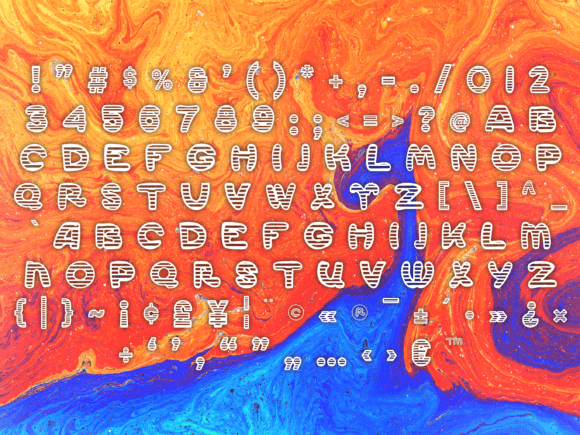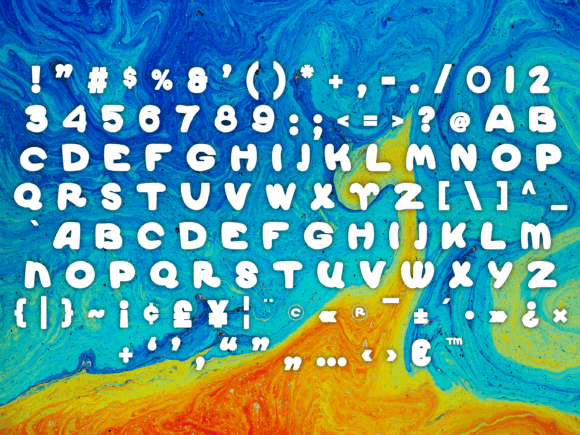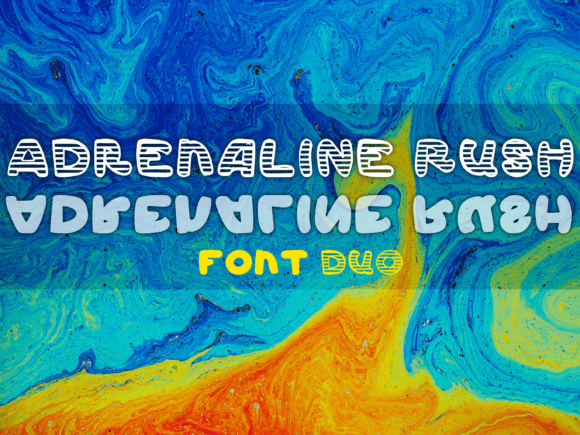
You know that moment when an idea hits you, and you can’t wait to bring it to life? For designers, it’s a rush like no other – a spark that sets your imagination ablaze and propels you towards something truly extraordinary. It’s a feeling that’s hard to describe, but it’s the thrill of creation that keeps us coming back for more.
That’s exactly what the Adrenaline Rush Font is all about – unleashing your creativity and letting your imagination run wild. This dynamic display font duo combines a solid style with a striped style, giving you the perfect canvas to create something truly spectacular. With the Adrenaline Rush Font, the possibilities are endless, and the fun is just beginning.
For designers, this font is a valuable asset – a versatile tool that can add an extra layer of excitement to your projects. Whether you’re working on a bold new campaign or a eye-catching event invitation, the Adrenaline Rush Font is sure to deliver. So why wait? Get ready to unleash your inner designer and experience the rush for yourself!
Adrenaline Rush Font Key Features
- Font Family: Adrenaline Rush is a unique, high-energy font family designed for making a statement. It’s available in several styles, including Regular, Bold, Italic, and Bold Italic.
- Unique Characteristics: Adrenaline Rush font features bold, dynamic letterforms with exaggerated lines and angles, making it perfect for use in action-packed, energetic designs, such as sports, gaming, and adventure-themed materials.
Adrenaline Rush Font Review
Overall, I’d say the Adrenaline Rush Font is a solid choice for any designer looking to add a bit of energy to their project. Here are some of its standout features:
- ✨ The font’s modern design gives it a fresh and dynamic feel, perfect for projects that need a bit of excitement.
- ⚠️ The font may not be suitable for use in very small sizes, as the letters can become difficult to read.
- ⚠️ Some users may find the font’s design to be too bold or overwhelming.
Overall, I think the Adrenaline Rush Font is a great choice for designers who want to add some excitement to their project. While it may have some limitations, its customization options and modern design make it a solid choice for a variety of applications.
For best results, use the Adrenaline Rush font in headings and titles to add a touch of excitement and energy to your design.
For best results, use the Adrenaline Rush font in bold, colorful text to create a dynamic and eye-catching design.
For best results, use the Adrenaline Rush font in headings and titles to add a touch of excitement and energy to your presentation or document.
Some common use cases for the Adrenaline Rush font include:
- Adventure and action-themed designs
- Head